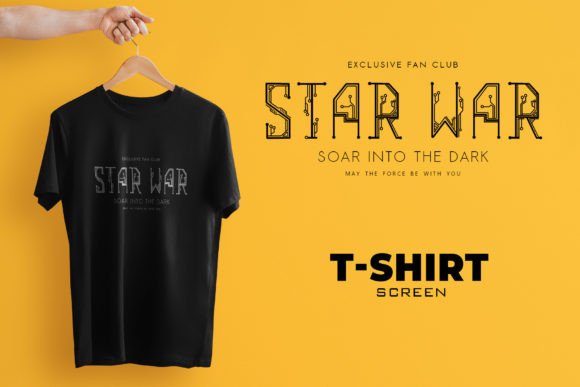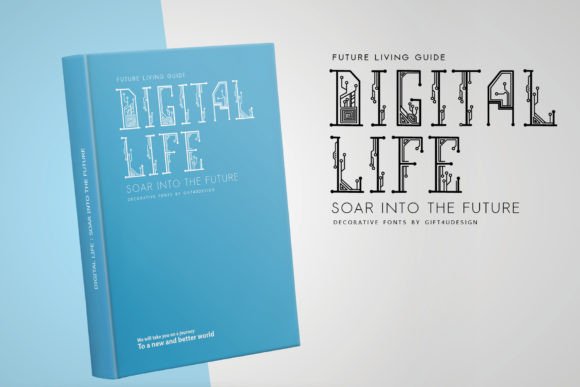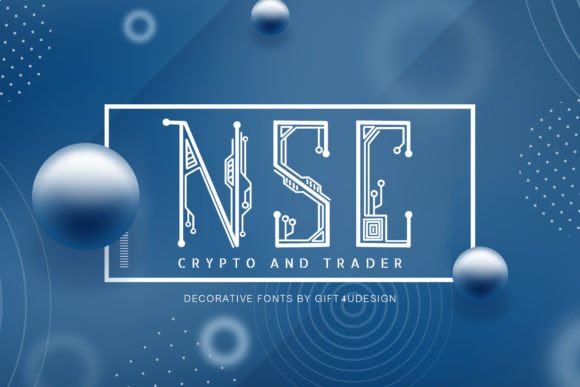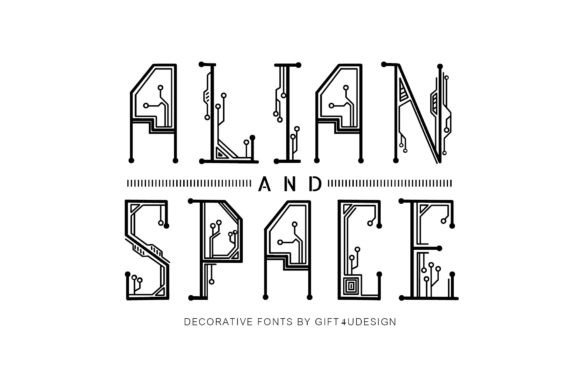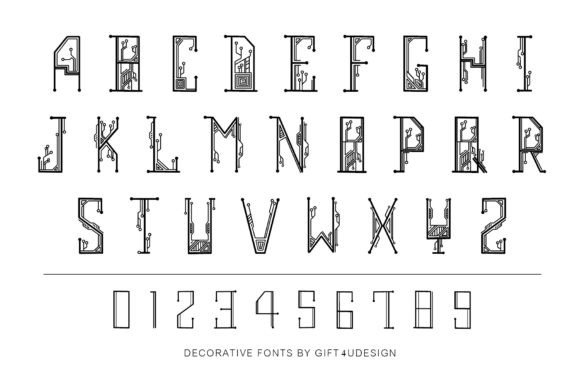
The Quest for the Perfect Font: Discovering Api-Digital
I’ll never forget the time I was working on a project to design a custom PCB (printed circuit board) for a friend’s robotics project. I had all the components laid out, the design was coming together, but something was off. The font I was using just didn’t feel right – it was too generic, too bland. I needed something that screamed “tech” and “innovation.” That’s when I stumbled upon Api-Digital, a decorative font that would change the game for me and my design projects.
A Game-Changing Font for Tech-Inspired Designs
Api-Digital is a decorative font specifically designed for projects that require a digital, technological feel. It’s perfect for designs related to electronics, space, sci-fi, robots, crypto, and more. The font’s unique style adds a touch of futurism and innovation to any project, making it a great choice for designers, crafters, and creative hobbyists.
Here’s what I love about Api-Digital:
• ✨ Unique and futuristic design that adds a touch of innovation to any project
• 💻 Great for digital and print designs, including PCBs, robotics, and electronics projects
• 🎨 Can be used in conjunction with other fonts to create a visually appealing design
And here are some small quirks to keep in mind:
• ⚠️ Some characters may not work well in all contexts, especially when used in large blocks of text
• 🤔 Limited availability of certain special characters, which may require workarounds
One of the best things about Api-Digital is its OpenType features and glyphs. These allow you to customize the font to suit your design needs. For example, you can use stylistic alternates to create a more futuristic look or access special characters to add more detail to your design.
The creator of Api-Digital was inspired by the world of technology and innovation. They wanted to create a font that captured the essence of digital design and provided a unique alternative to traditional fonts. The result is a font that’s both futuristic and functional.
What is Api-Digital best used for? Api-Digital is best used for designs related to technology, electronics, space, sci-fi, robots, crypto, and more.
Can I use Api-Digital with other fonts? Yes, Api-Digital can be easily paired with other fonts to create a visually appealing design.